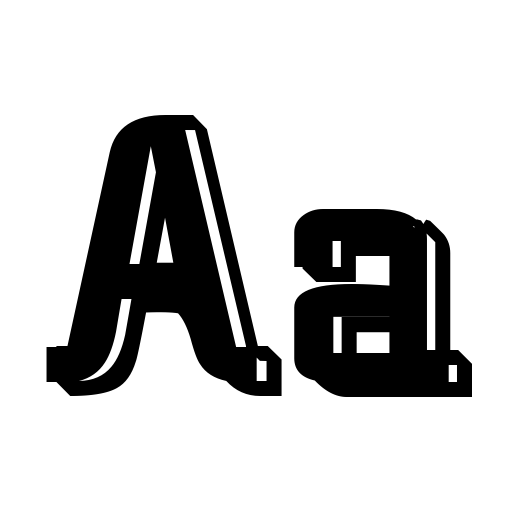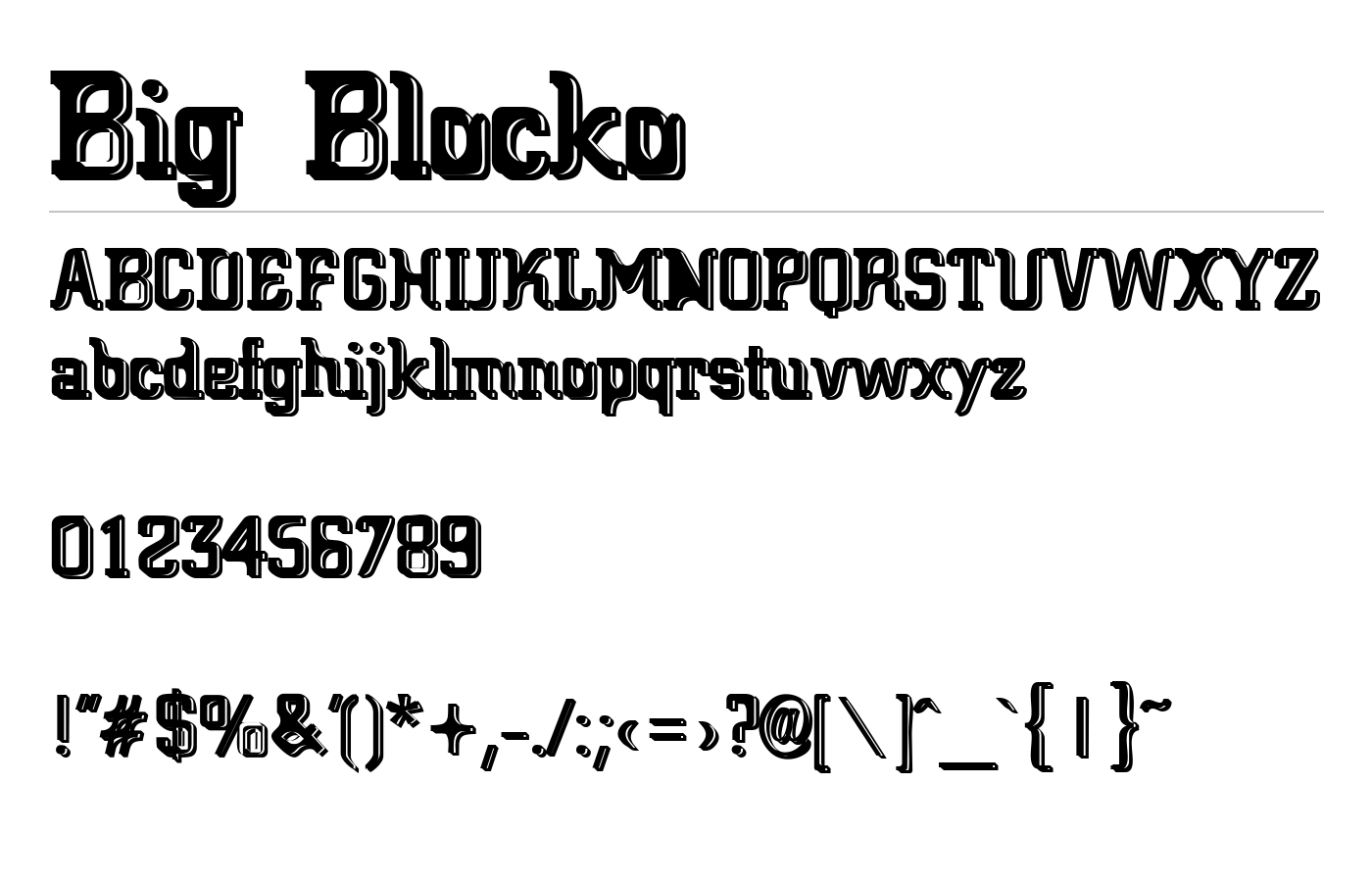
Big Blocko is a bold slab serif font with a strong, blocky presence and medium contrast between thick and thin strokes that creates a dynamic, vintage-inspired look. Its sharp edges and unique shadow-like layering give it a playful yet sturdy character, perfect for eye-catching headlines, posters, and branding that aims to stand out with a retro yet modern flair. This font works well in creative and display contexts where boldness and personality are key.
Big Blocko Font